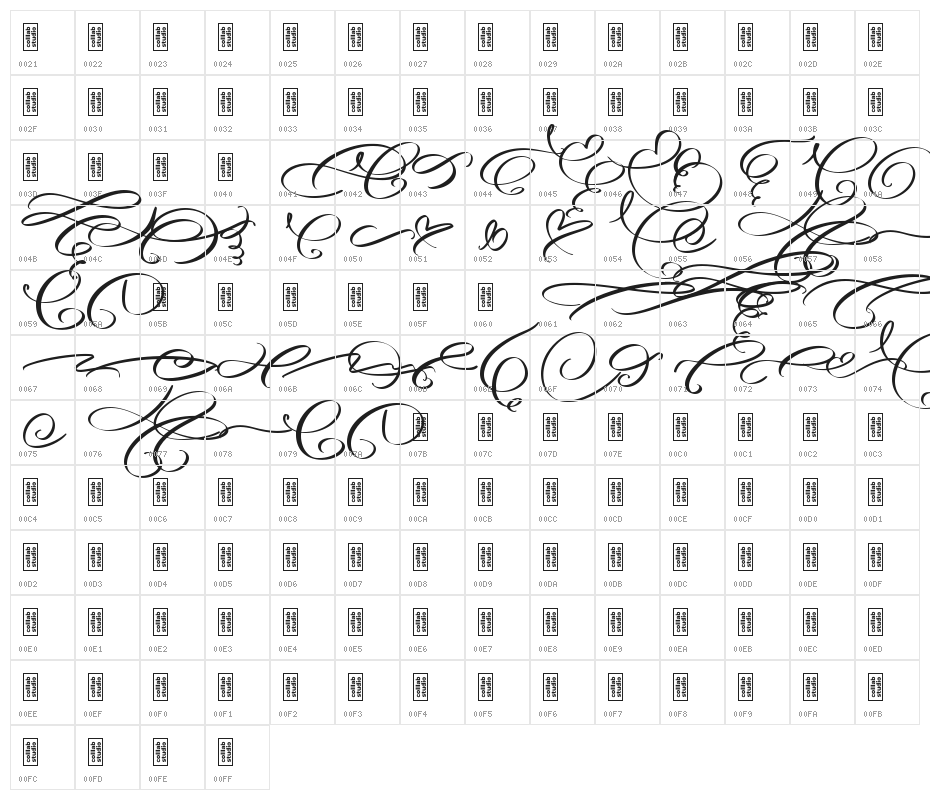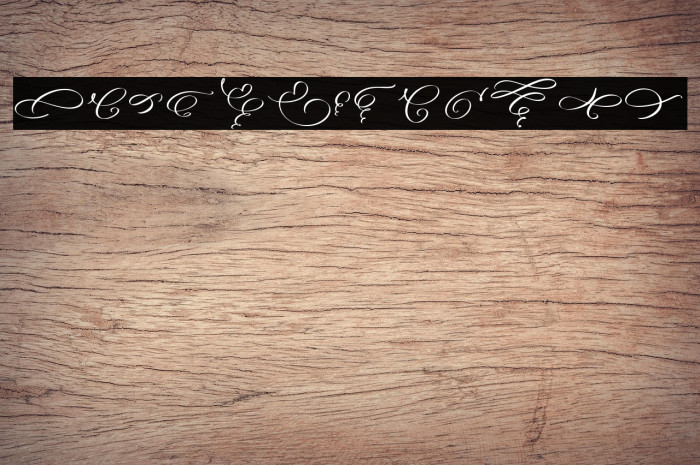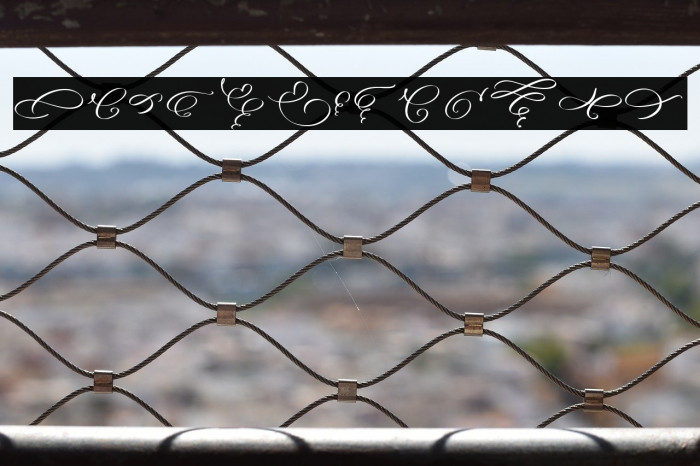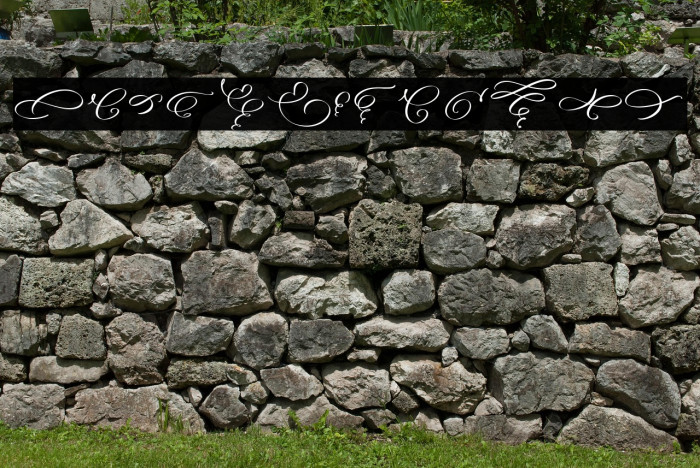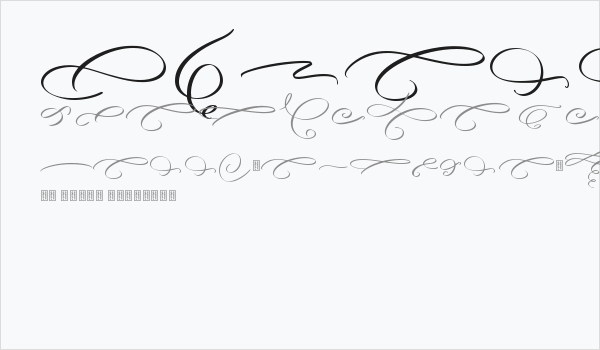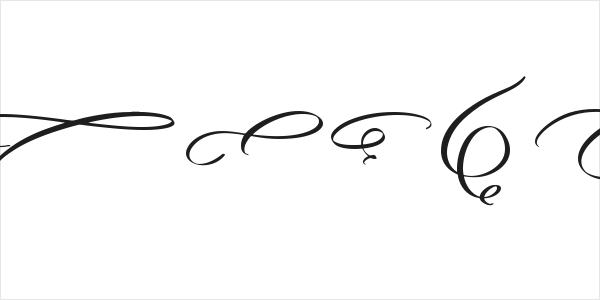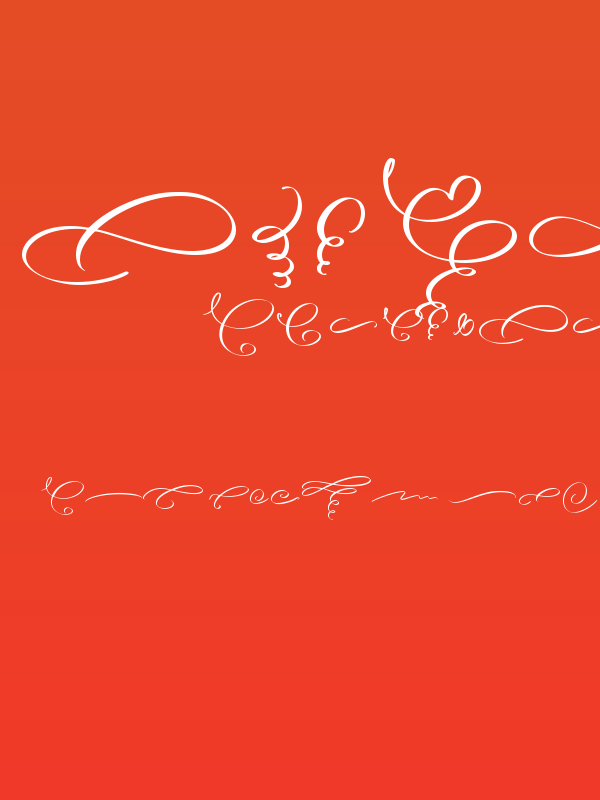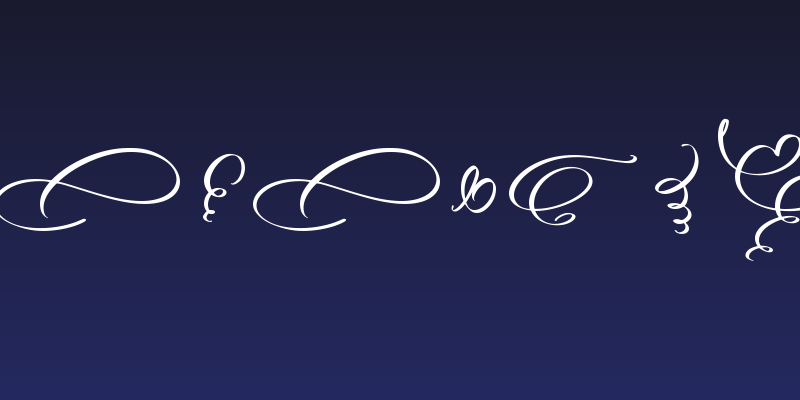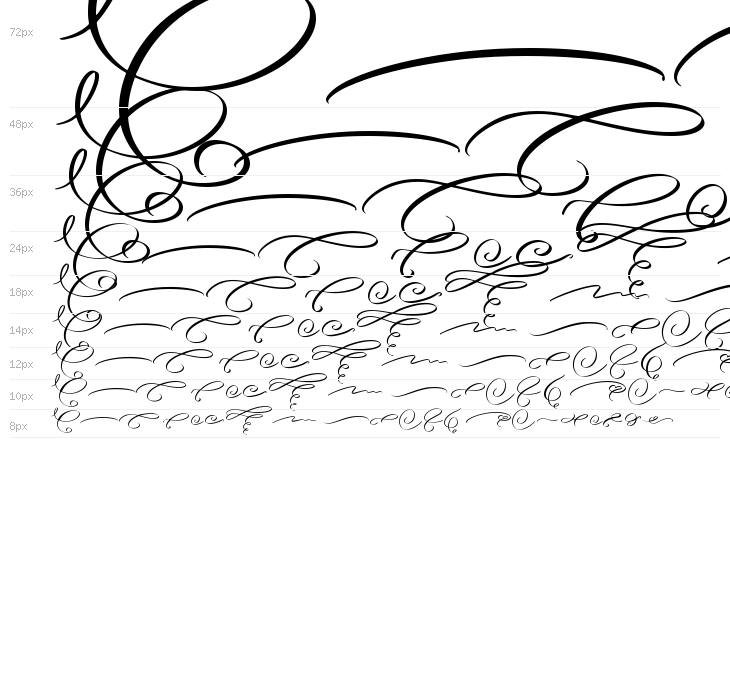
Angella Gardness Swash Font
Angella Gardness Swash Description
This font features an elegant and decorative style with intricate swashes and flourishes. Each character is adorned with elaborate curves and loops, creating a sense of sophistication and artistry. The design is reminiscent of calligraphic handwriting, making it suitable for projects that require a touch of elegance and flair. The font's ornate details make it ideal for use in invitations, greeting cards, and branding materials where a luxurious and refined appearance is desired.